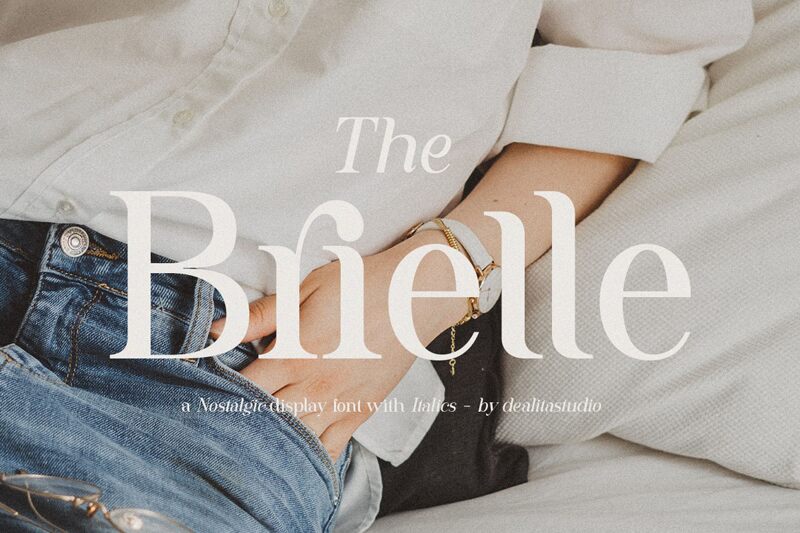
Brielle, crafted by Dealita Studio, is a striking serif font that exudes elegance and sophistication. Its graceful curves and distinctively pronounced serifs draw the eye, creating an aesthetic that feels both timeless and contemporary. The font’s balanced proportions make it versatile, perfect for both grand headlines and subtle body text.
Visually appealing, Brielle captures attention with its bold expressions while maintaining an air of refinement, making it ideal for upscale branding projects or high-end editorial layouts. Its unique character shines particularly in invitations, luxury packaging, and website headers. By marrying classic elegance with modern sensibilities, Brielle effortlessly enhances any design context where a touch of sophistication is desired.